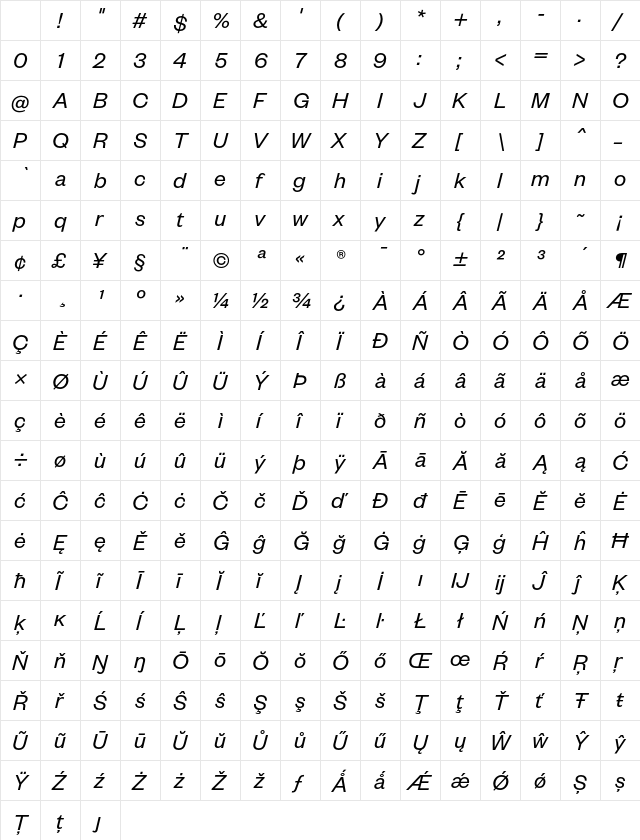
Complete Founders Grotesk Regular Italic glyph index. Displaying only characters natively supported by Founders Grotesk Regular Italic font.
Founders Grotesk Regular takes a clean, functional approach - its unadorned letterforms prioritise legibility and work reliably across screen and print environments. The slanted form adds forward momentum and visual energy.
Font Pairing: Works well alongside a characterful serif or display font that can carry the expressive load while Founders Grotesk Regular handles the functional copy.
Pro Tip: Use Founders Grotesk Regular for UI labels, navigation, and short-form body copy where clean legibility is the priority.
Who designed the Founders Grotesk Regular Italic font?